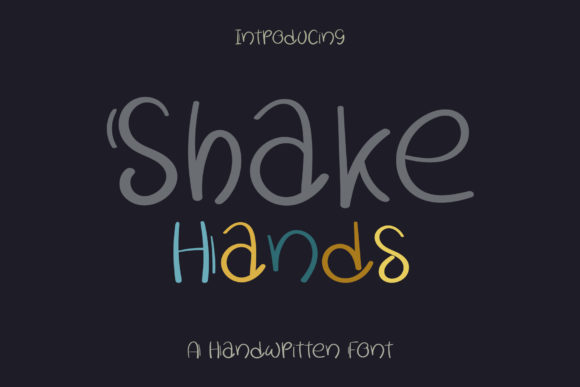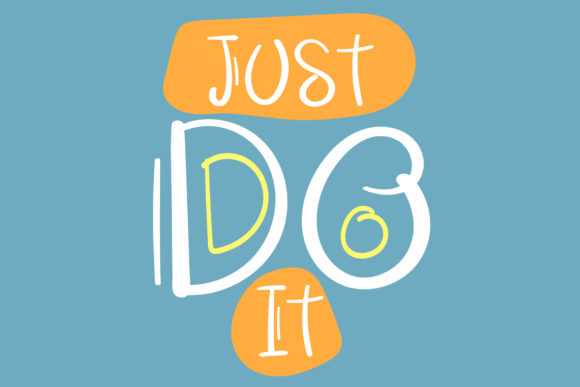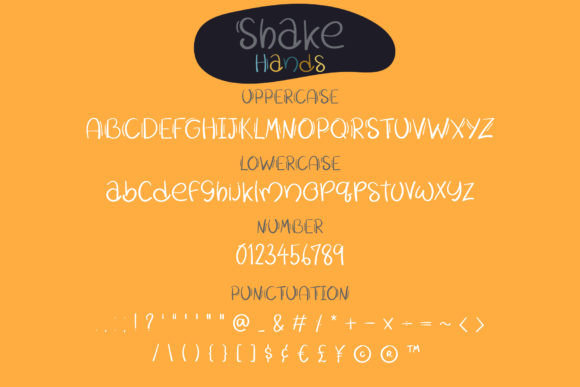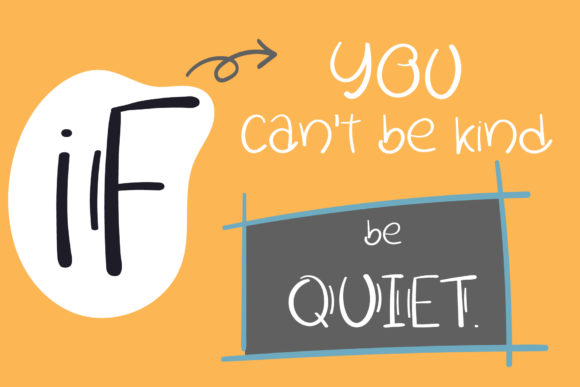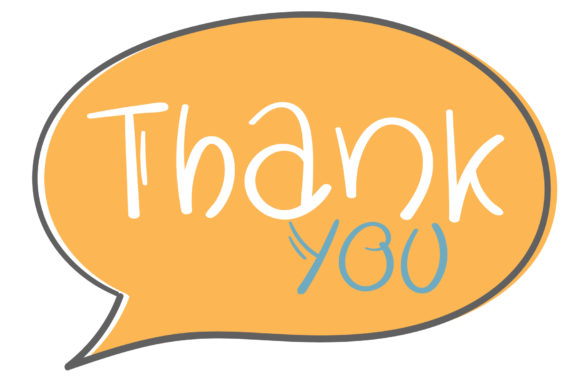
Shake Hands Font
About Shake Hands Font
Shake Hands is a fun and simple handwritten font. Clean and a little bit quirky, this font is the perfect choice for all of your logos, branding, social media, and crafty DIY projects.